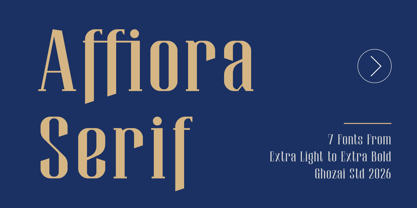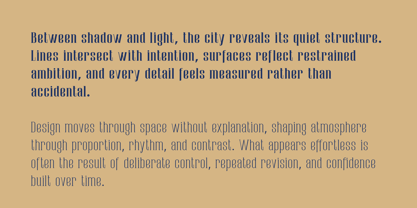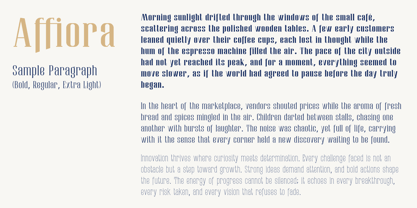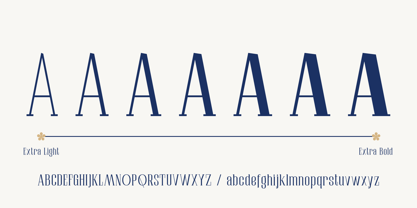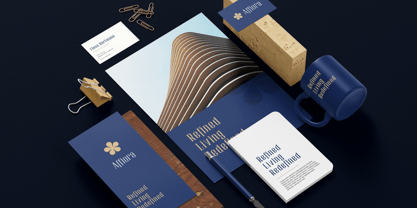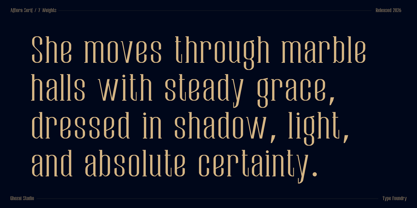
Affiora Serif
by Ghozai Studio
The Affiora Serif Font Family was designed by Manzur Ghozaali and published by Ghozai Studio. Affiora Serif contains 7 styles and family package options.
Affiora Serif is a versatile serif font family featuring 7 weights, from Extra Light to Extra Bold. Its extensive range of weights, combined with OpenType features and robust multilingual glyph support, makes Affiora Serif ideal for a variety of design needs across multiple languages. The modern, clean, and aesthetic design is perfect for applications such as display typography, branding, signage, magazines, and print materials. Whether you're creating striking headlines, distinctive logos, or clear signage, Affiora Serif delivers both style and functionality, effortlessly adapting to various design styles and adding a contemporary touch to any project.
Designers: Manzur Ghozaali
Publisher: Ghozai Studio
Foundry: Ghozai Studio
Design Owner: Ghozai Studio
Ghozai Studio is a design studio based in Jombang, Indonesia, founded by Manzur Ghozaali. We always try to create a high-quality diverse range of fonts that can be seamlessly integrated into any design project. We also believe that the process of creating a product should be enjoyable and fun. We know that when we have fun during the creation process, we can produce products that are more innovative and engaging for our customers.